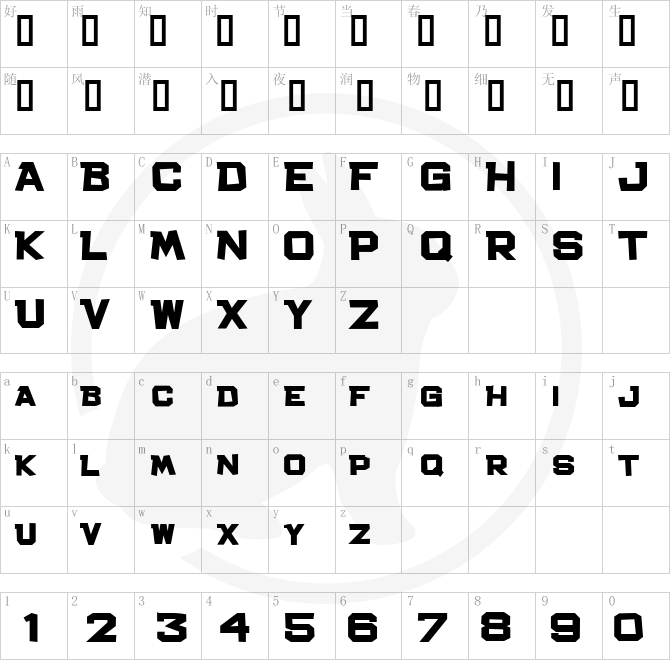
- Font Name:Bachelor Pad JL
Bachelor-Pad-JL-Bold.ttf is a very beautiful artistic font, Bachelor-Pad-JL-Bold.ttf is widely used in the design and printing of various books and pictures,Bachelor-Pad-JL-Bold.ttf has a strong visual impact,Bachelor-Pad-JL-Bold.ttf is a commonly used font in newspapers, magazines and books, and is used in posters, e-commerce Poster design, store design, logo design, font design and other fields.Bachelor-Pad-JL-Bold.